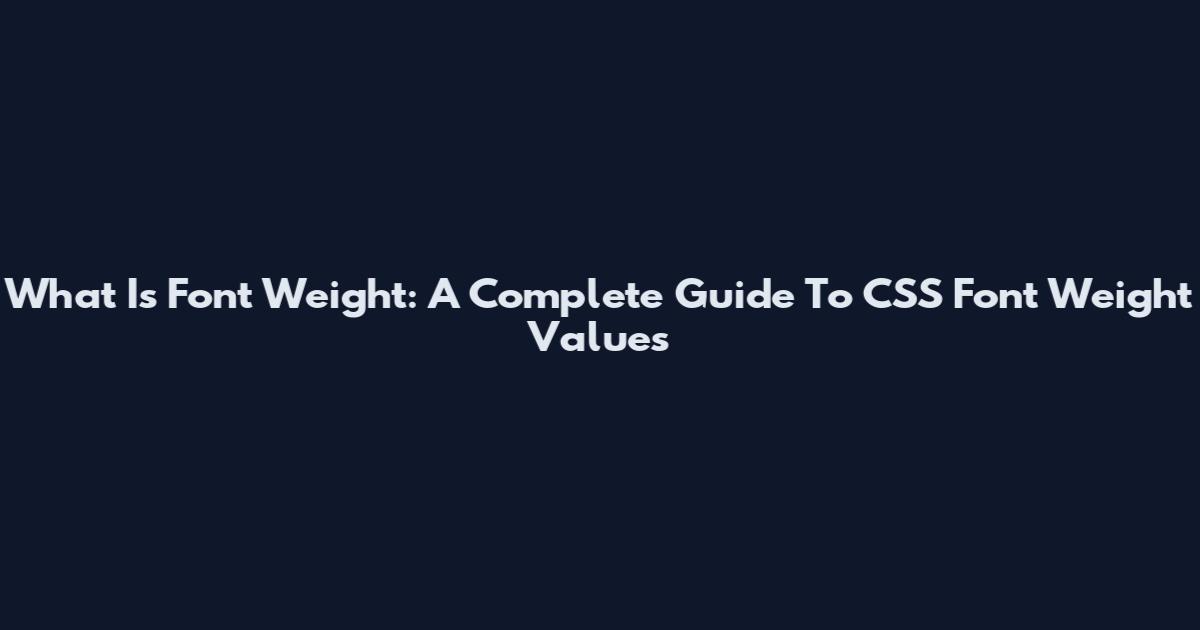
What Is Font Weight: A Complete Guide To CSS Font Weight Values
Font weight defines how thick or thin the strokes of a character appear, shaping the visual impact and readability of text on screen and in print. It is a core property of any typeface that works alongside size, spacing, and color to set hierarchy and tone.
Designers and developers use font weight to guide attention, convey brand personality, and ensure accessibility. Understanding how weight is named, measured, and applied helps you choose the right look and feel for headings, body copy, and UI elements.
Weight Name Typical CSS Keyword Numeric Value Visual Density
Thin 100 / thin 100 Very light, delicate strokes
Extra Light 200 / extra-light 200 Light but slightly stronger than thin
Light 300 / light 300 Soft reading weight for long texts
Regular 400 / normal 400 Standard weight for body copy
Medium 500 / medium 500 Subtle emphasis without heaviness
Semi Bold 600 / semi-bold 600 Clear hierarchy for headings and accents
Bold 700 / bold 700 Strong presence for key information
Extra Bold 800 / extra-bold 800 High impact, usually for short text
Black 900 / black 900 Maximum weight for dramatic headlines
Understanding font weight in web design
Web design relies on font weight to create contrast and organize information. The right weight balances professionalism and personality while keeping content legible across devices. On screens, weights are limited by the available font files, so choosing a variable range or multiple weights affects page size and performance.
Effective design pairs weights intentionally, such as using a light or regular weight for body text and a bold or extra bold weight for headings. This hierarchy guides the eye and improves scannability without adding unnecessary visual noise.
How font weight affects readability and accessibility
Readability depends not only on size and line length but also on weight contrast between text and background. Too thin a weight can reduce legibility at small sizes, while excessively heavy weights can create visual fatigue over long reading sessions.
For accessibility, ensure sufficient contrast ratios and avoid using ultra-light or ultra-bold extremes for essential body content. Test how your chosen weights perform at different zoom levels and on various screen technologies to support diverse users.
Typographic hierarchy built with font weight
Hierarchy lets readers quickly identify titles, sections, and details. You can craft a clear typographic system by assigning specific weights to different levels of text, from primary headings to captions.
• Use stronger weights for primary headings to signal importance.
• Reserve medium or semi-bold weights for subheadings and key interface labels.
• Keep body text in the regular to light range for comfortable reading.
• Employ subtle weight shifts for interactive elements like buttons and links.
Choosing the right font weight pairings
Pairing weights across typefaces or within a single family helps communicate structure and mood. A classic combination pairs a regular body weight with a bold heading weight, while more expressive designs might mix light and extra bold for contrast.
When selecting pairings, consider the brand tone, the reading context, and technical constraints like available font files. Variable fonts expand your options by allowing fine-grained weight adjustments without switching files, but you still need clear design rules to maintain consistency.
Technical implementation and performance
Implementing font weight correctly involves loading the necessary font files and declaring weights in CSS. Using @font-face with explicit weight descriptors or leveraging variable fonts lets you target specific ranges without bloating your stylesheet.
Performance-conscious teams often subset fonts and preload critical weights to ensure fast, stable rendering. Consider fallback stacks and test how different weights behave under slow network conditions to avoid layout shifts or invisible text.
How do I choose between lighter and bolder weights for my brand?
Choose lighter weights for a minimalist, elegant brand feel and bolder weights for high energy or emphasis, while ensuring sufficient contrast and testing legibility across devices and usage contexts.
Can using very thin or very bold weights harm accessibility?
Yes, very thin weights can reduce legibility at small sizes, and very bold weights can create glare or visual fatigue; aim for sufficient contrast and avoid extremes for essential body content to support diverse readers.
Do all fonts include every possible weight from 100 to 900?
No, many families ship with only a few weights like Regular, Medium, and Bold; variable fonts can interpolate weights, but static font files require explicit families and loaded ranges to avoid missing glyphs.
Strategic use of font weight strengthens visual hierarchy, supports accessibility, and reinforces brand identity across web and print.
• Map weight roles to specific content levels, from captions to key calls to action.
• optimize load strategy by declaring explicit weight ranges or choosing variable fonts wisely.
• Test combinations on real devices and in varied lighting conditions to validate legibility and perceived contrast.
• Document weight decisions in design systems so teams apply them consistently across interfaces and touchpoints.